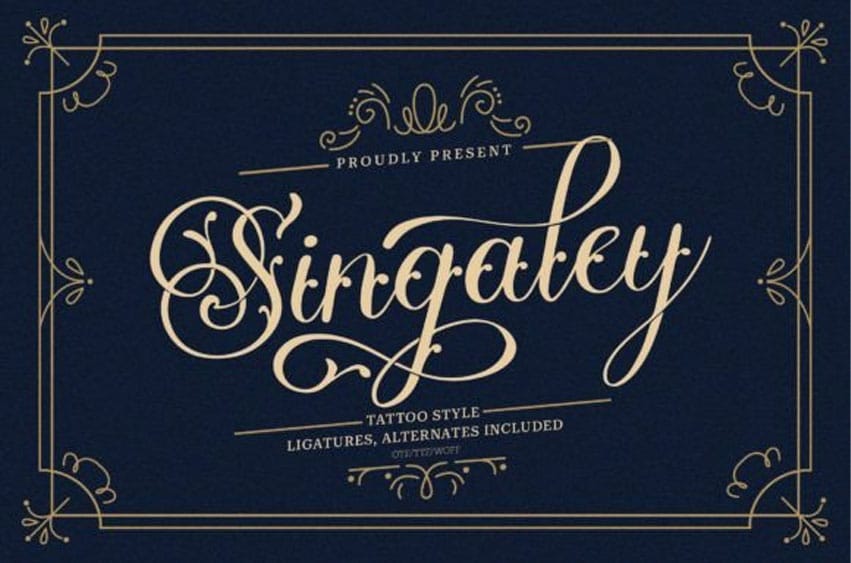
Singaley Font is a tattoo style font, suitable for any projects such as: logos, branding projects, homeware designs, product packaging, mugs, quotes, posters, shopping bags, t-shirts, book covers, name card, invitation cards, greeting cards, label, photography, watermark, special events, and all your other lovely projects that need a tattoo style taste.